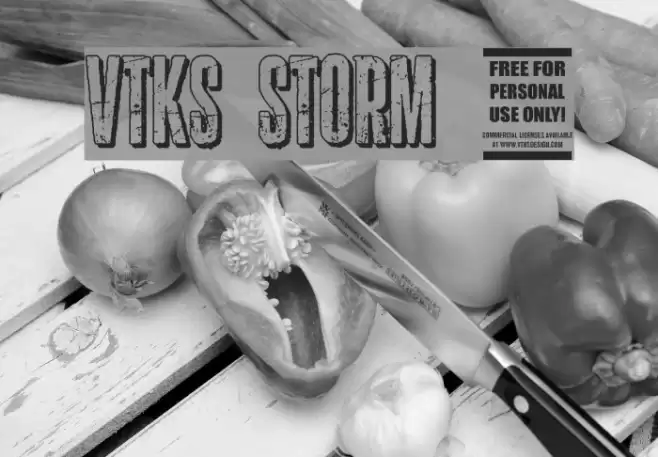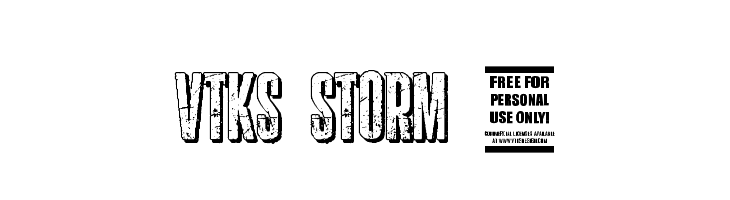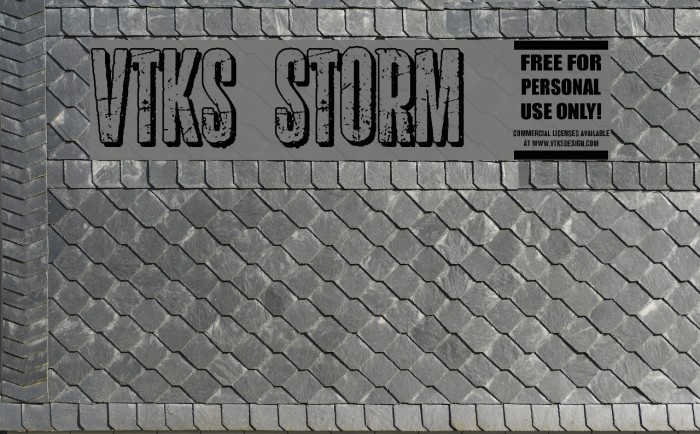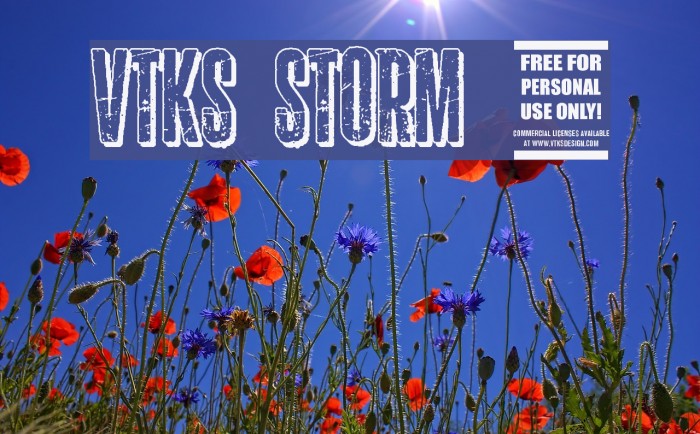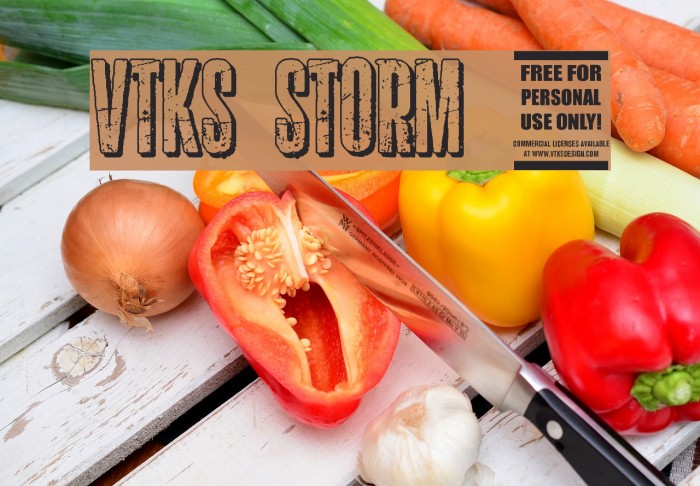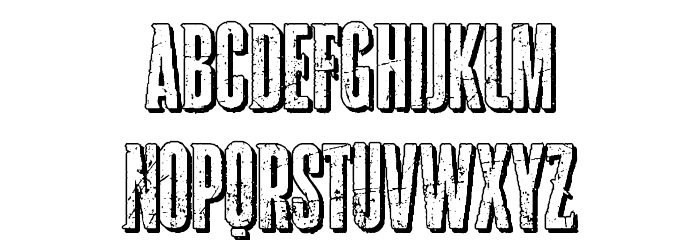
vtks storm 2 Font
vtks storm 2 Description
This font features a bold and distressed style, with a rugged and weathered appearance that gives it a gritty, urban feel. The characters are uppercase only, with a heavy weight and a textured surface that suggests erosion or decay. The strokes are thick, and the edges are rough, adding to the overall rugged aesthetic. This font is ideal for designs that require a strong, impactful presence, such as posters, album covers, or branding for edgy or alternative products.
A bold, distressed font with a rugged, textured appearance from Distorted Eroded fonts.
- Proposed Projects: Ideal for posters, album covers, branding for alternative products, and any design needing a strong, gritty impact.